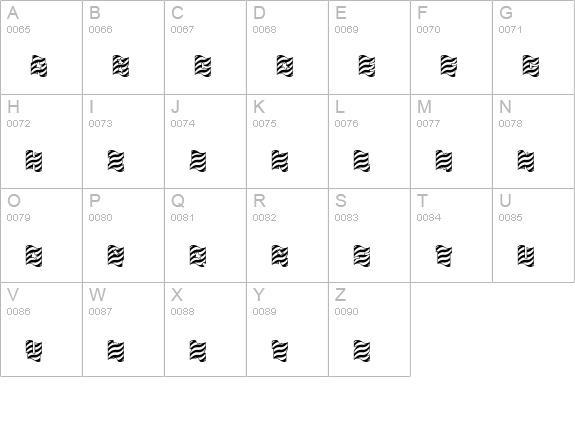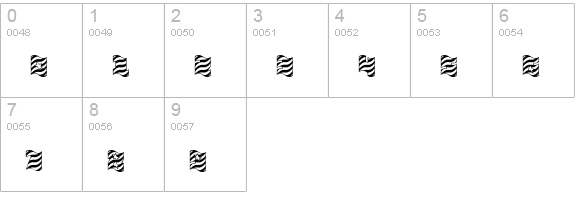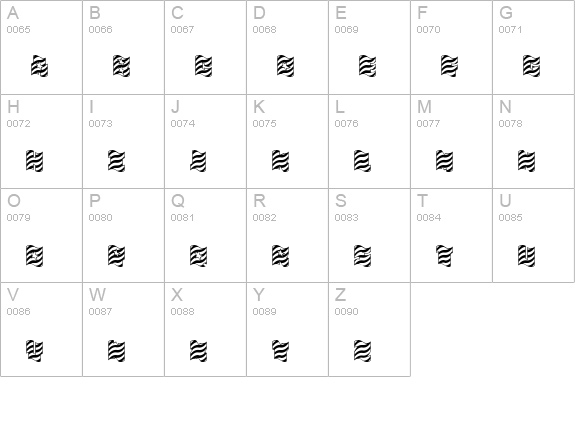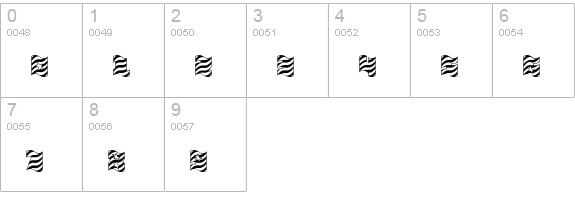
FlagDayOne Font Details
FlagDayOne font is a versatile and stylish typeface that exudes a sense of patriotism and pride. With its bold letterforms and unique design elements, this font is perfect for projects related to national holidays, celebrations, or any design that needs a touch of flair. The strong and impactful appearance of FlagDayOne font makes it stand out in both digital and print media. What makes FlagDayOne font even more appealing is that it is available for free download at FontsMarket.com. This means that you can easily access this eye-catching font and incorporate it into your designs without any cost. Whether you're creating posters, banners, social media graphics, or any other project, FlagDayOne font is a great choice to add a touch of sophistication and patriotism to your work. Download it today and elevate your design projects with this stunning typeface.